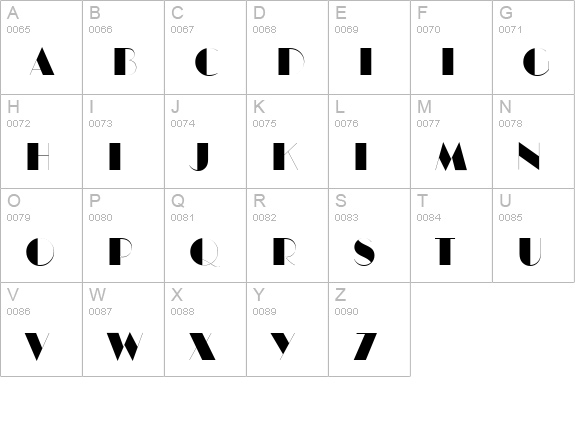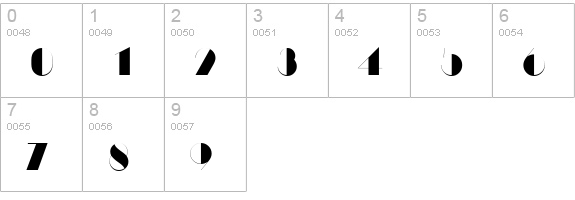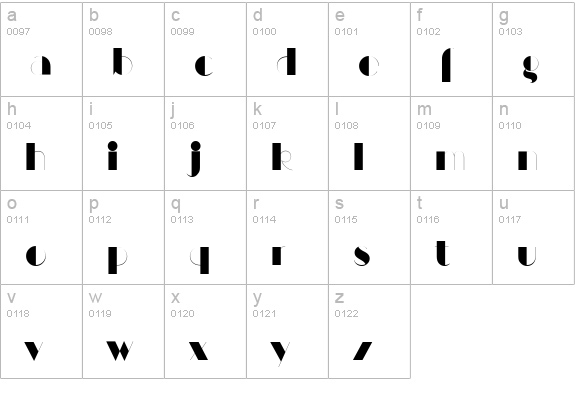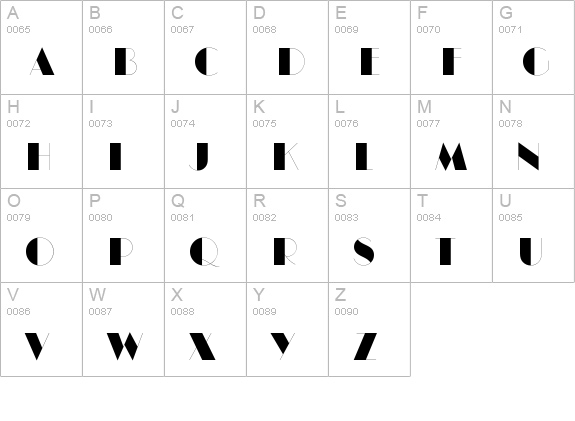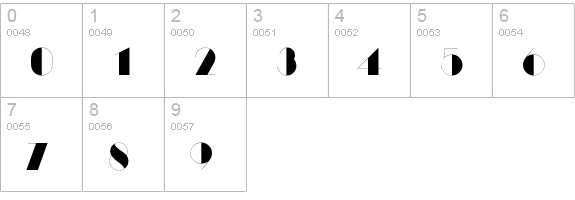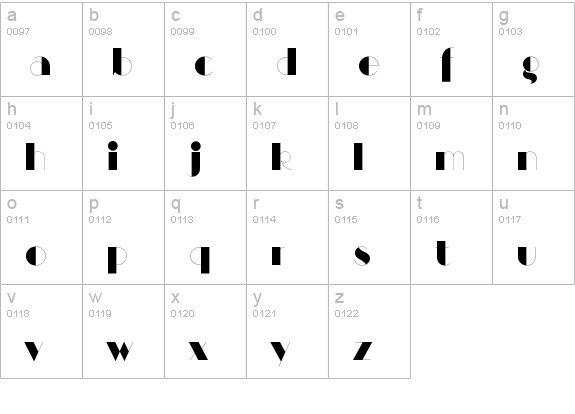
HarlemNights-Regular is the standard, neutral variant in the HarlemNights typeface family \xE2\x80\x94 well suited to general body text, paragraphs, and standard typographic work.
HarlemNights-Regular font is a stylish and sophisticated typeface that exudes elegance and charm. Its sleek lines and vintage-inspired design make it a perfect choice for adding a touch of retro flair to your projects. This versatile font is suitable for a wide range of uses, from branding and packaging to invitations and posters. What makes HarlemNights-Regular font even more appealing is that it is available for free download at FontsMarket.com. Yes, you read that right - you can get your hands on this exquisite font without spending a dime! So go ahead and elevate your designs with the timeless beauty of HarlemNights-Regular font.